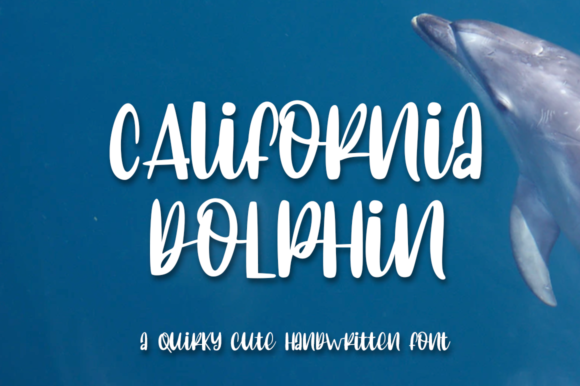
Meet the Font that Brings a Smile to Your Design
Have you ever been browsing through a beautiful beach town, feeling the warm sun on your skin and the sound of the waves crashing against the shore? That’s exactly the vibe you’ll get with the California Dolphin Font – a cute and casual handwritten font that’s sure to bring a smile to your design.
This friendly font features gorgeous swashes and ligatures that make it incredibly versatile. Whether you’re looking for a font to add a personal touch to your Instagram posts or a calligraphy script for your DIY projects, the California Dolphin Font will turn any creative idea into a true piece of art. With its unique charm, this font is a valuable addition to any designer’s toolkit.
California Dolphin Font Key Features
- Unique Characteristics: The font features a playful, cursive script with a dolphin-inspired design, making it perfect for creating whimsical and eye-catching text effects.
- Font Style: California Dolphin Font comes in a single style, but it’s highly versatile and can be used in a variety of contexts, from informal to formal.
California Dolphin Font Review
Overall, I think the California Dolphin Font is a unique and eye-catching choice for projects. ✨ Its irregular shape and playful feel can add a fun, whimsical touch to designs. The font is versatile and can be used in a variety of contexts, from logos and branding to editorial and digital content.
Here are some of the things that I think work well with this font:
- ✨ The font’s irregular shape and letterforms create a lot of visual interest and can add a touch of personality to designs.
- ✨ The font is highly legible, even at small sizes, making it a great choice for digital content and small text.
- ✨ The font’s open feel and clean lines make it easy to pair with other fonts and design elements.
- ⚠️ The font may not be suitable for formal or professional projects, as it can come across as too playful or immature.
- ⚠️ The font’s irregular shape and letterforms can make it difficult to read at very small sizes or in low-light conditions.
- ⚠️ The font may not be suitable for projects that require a high degree of precision or accuracy, as its playful feel can make it difficult to work with.
Overall, I think the California Dolphin Font is a fun and versatile choice for projects, but it may not be the best fit for every design context. With careful consideration and planning, it can be a great addition to a designer’s toolkit.
Getting the Most Out of California Dolphin Font
Here are some tips for getting the most out of California Dolphin Font:
- Use it in bold or italic to add emphasis to your text.
- Combine it with other fonts to create a unique and eye-catching design.
California Dolphin Font is a versatile font that can be used in a variety of applications, including:
- Marketing materials
- Social media